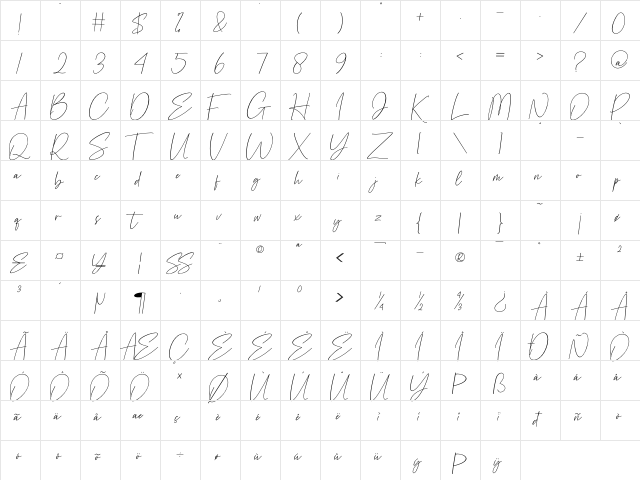
Cellestial Regular Font Preview
Cellestial Regular
Cellestial Regular Font Details
Design Context for Cellestial Typeface
Cellestial is a composed and adaptable typeface that performs quietly and consistently across a wide range of design contexts.